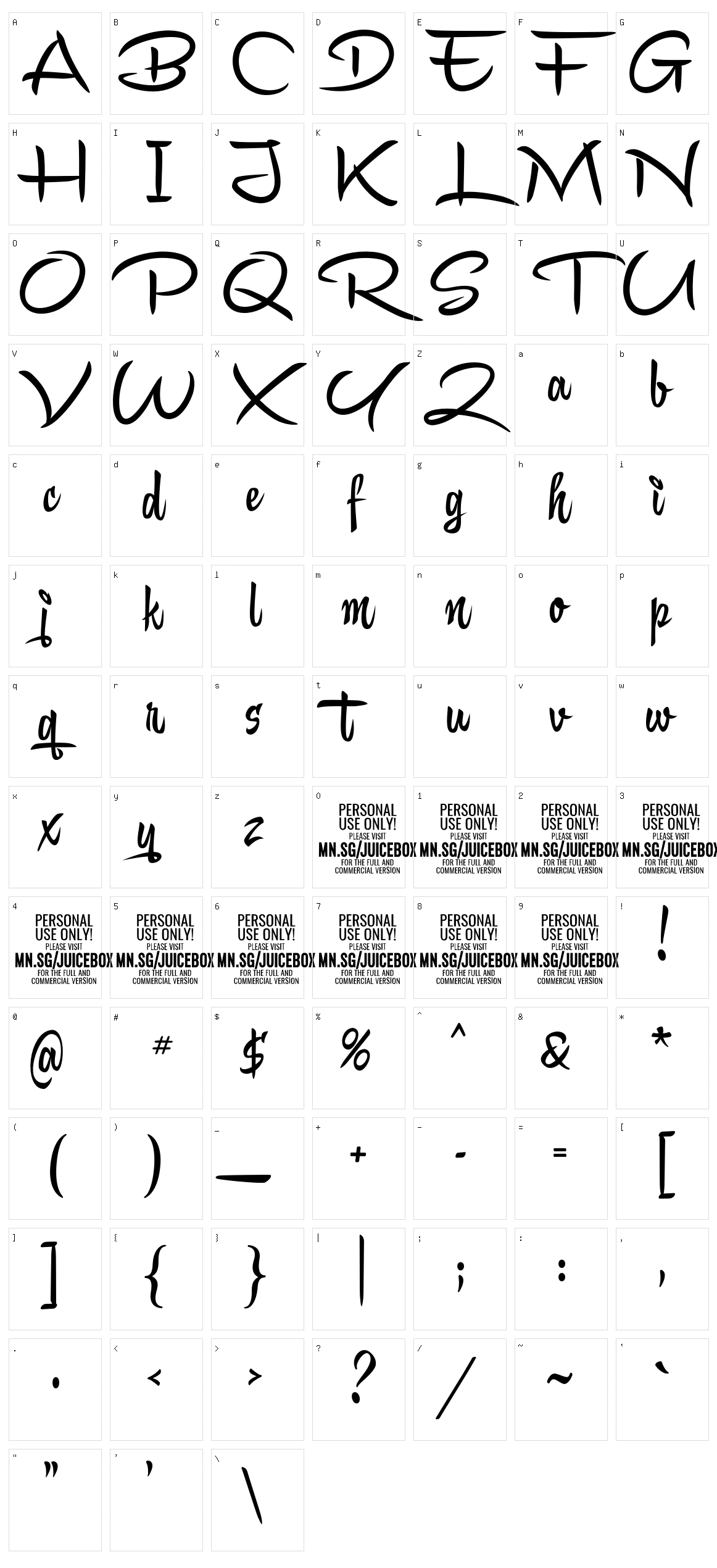
Juicebox Script is a cool calligraphy font.
A nostalgic call back to the golden age of the 1950s, this handwriting font has large capital letters and fluid brush style, evoking energy of a time when jukeboxes were the heartbeat of every diner and social club.
Juicebox Script's retro look infused with the essence of hand-painted signage and logotypes brings a piece of the past into modern designs. Each stroke is crafted to convey motion and emotion, making it an ideal choice for projects that require a touch of nostalgia coupled with the authenticity of brush handwriting.
Designed by Mans Greback, Juicebox Script combines the art of calligraphy with the vibrant culture of the mid-20th century.